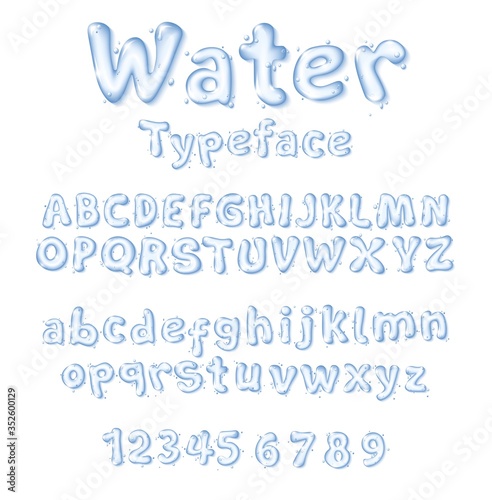
Water font or type liquid vector drop letters and digits. Isolated uppercase and lowercase letters, numbers. Pure aqua blue transparent characters with water droplets. Cartoon font